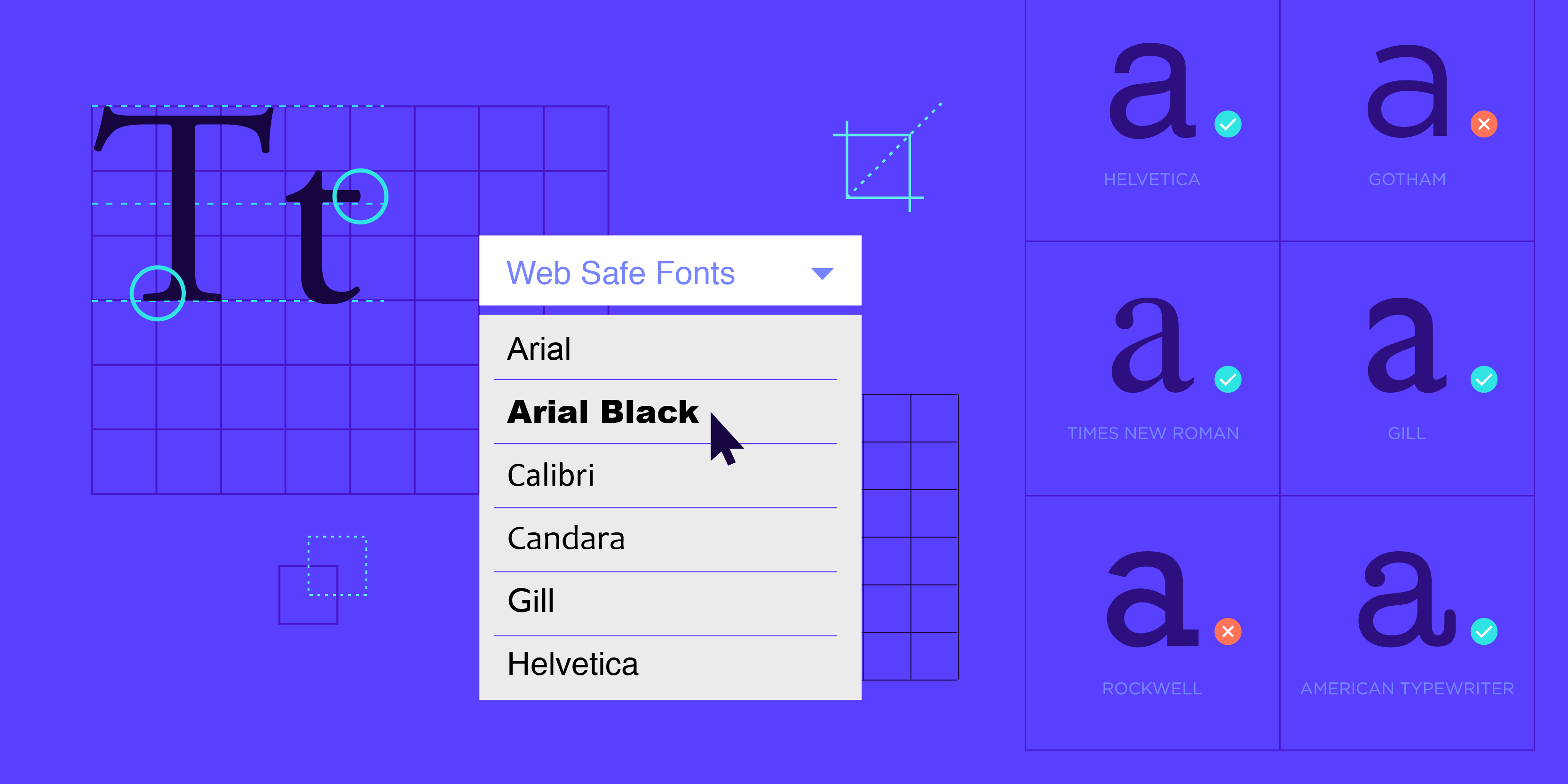
The Top Web Safe Fonts to Use on Your Website 2022
Top Web Safe Fonts to Use on Your Website 2022
Web Safe Fonts to Use on Your Website. Fonts play a vital role in framing your brand language and website design. Find the most suitable fonts for your websites, where to bring them, and when to add them. To have a wonderful web font that should be readable and safe web-fonts. It affects well across different devices, browsers, and operating systems.
Regardless, selecting the right font is not ever so easy. It’s standard to come across fonts that are visually attractive but aren’t web-safe or vice versa.
What Is A Web-Safe Font?
Web-safe fonts come pre-installed on most operating systems. It confirms that the font effect is as planned when accessed from different devices and browsers.
The most well-known examples of web-safe fonts include Arial, Times New Roman, and Helvetica.
What Are The Categories Of Fonts?
There are many varieties and types of fonts, and each deviation has its area relying on your brand. Some fonts are more decorated and prominent, while others are fairly simplistic and universal.
Web Safe Fonts To Use On Your Website
Some font types are perfect for a bold, eye-catching title, while others are best used in a lengthy paragraph of text. The different font types are as follows:
1. Sans-serif
2. Fantasy
3. Arial
4. Times New Roman
5. Times
6. Courier,... So on